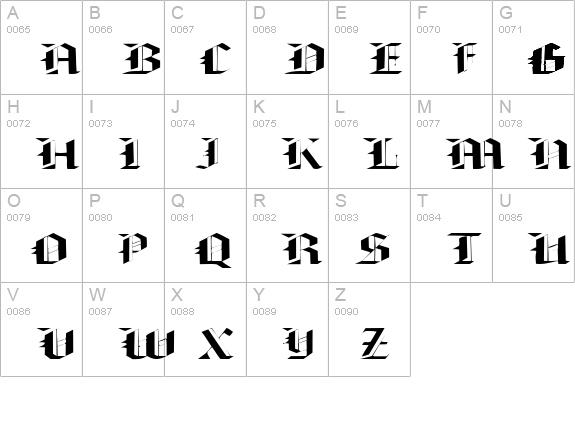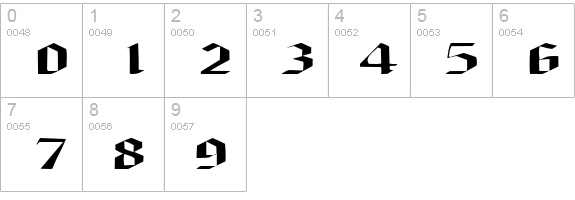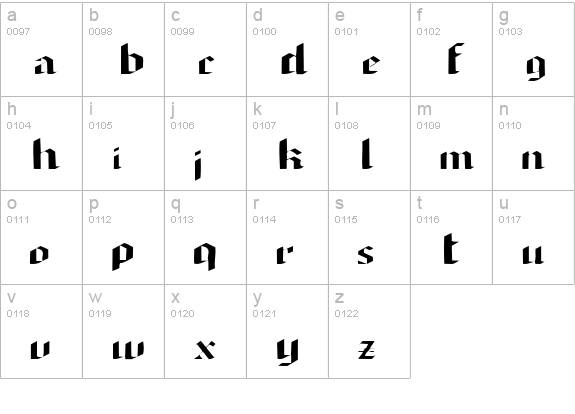
ArmedaSSK Font Details
ArmedaSSK font is a stylish and modern typeface that exudes elegance and sophistication. Its sleek lines and sharp angles make it perfect for a wide range of design projects, from branding to editorial designs. This versatile font is sure to make your text stand out and grab the attention of your audience. Best of all, ArmedaSSK font is available for free download at FontsMarket.com. So, whether you're a designer looking to add a new font to your collection or a business owner in need of a fresh look for your branding, ArmedaSSK font is the perfect choice. Download it today and elevate your designs with this stunning typeface.